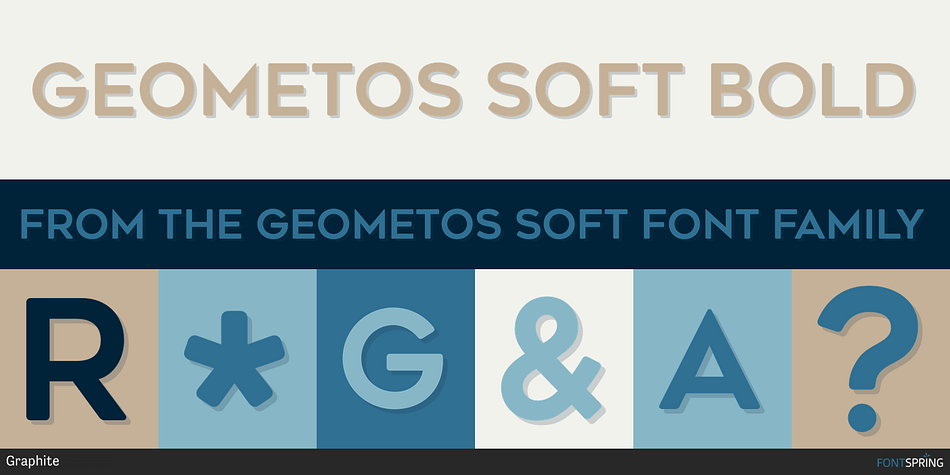
GEOMETOS SOFT BOLD
Designed by Deepak Dogra, Geometos Soft is a display sans and sans serif font family. This typeface has seven styles and was published by Graphite.
Geometos Soft is a geometric sans-serif display typeface family. It is a rounded version of Geometos Neue. An all caps family of seven weights, Geometos Soft is especially suitable for headlines, headings, branding, posters, packaging, titles and logos.